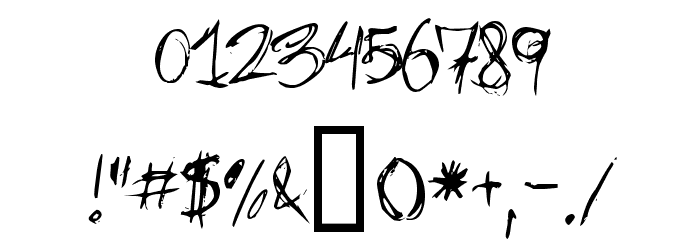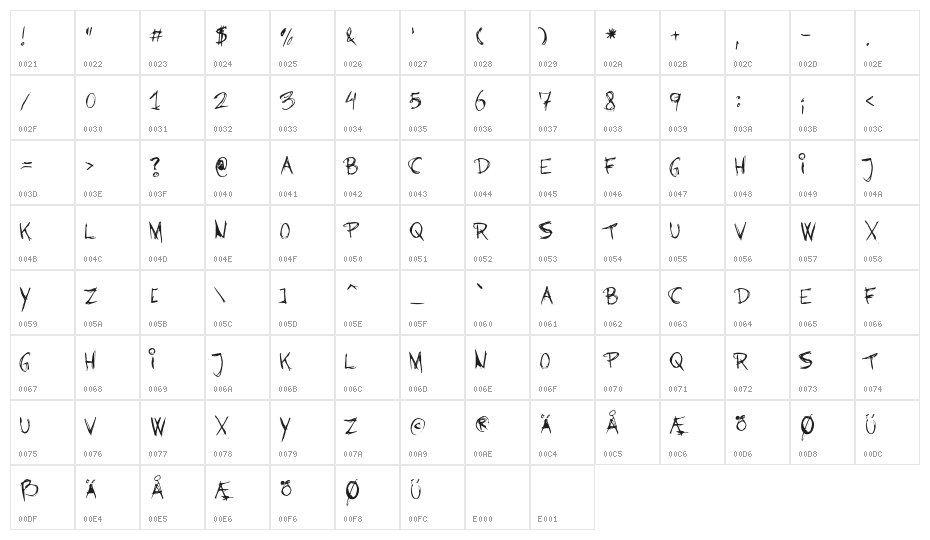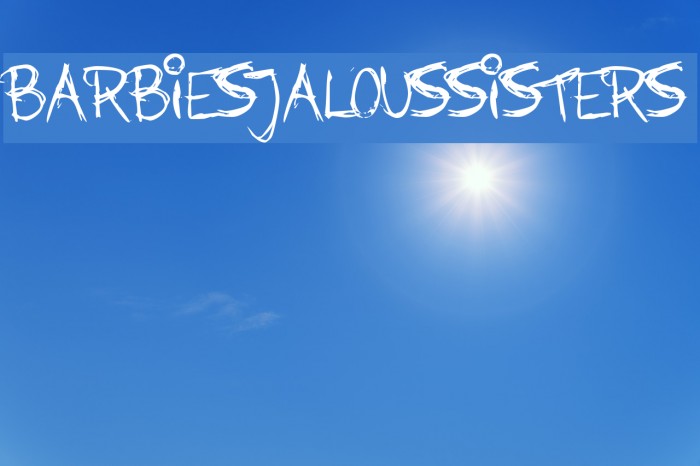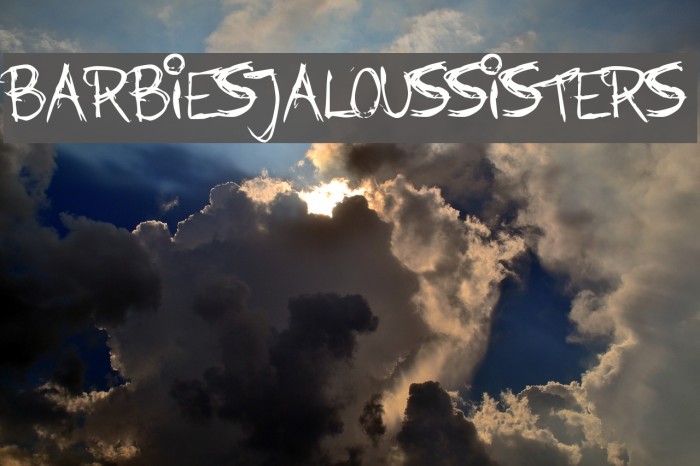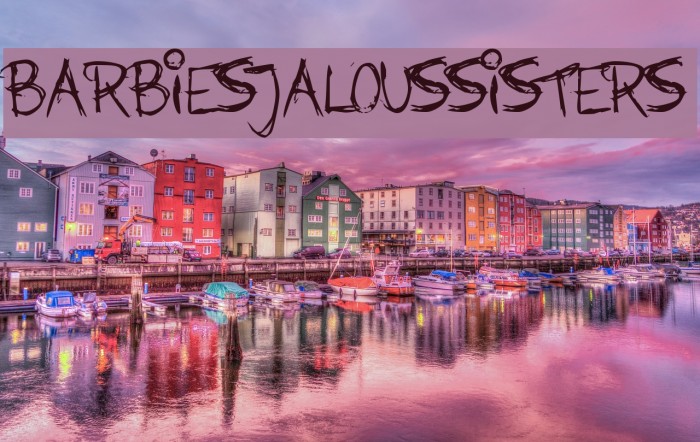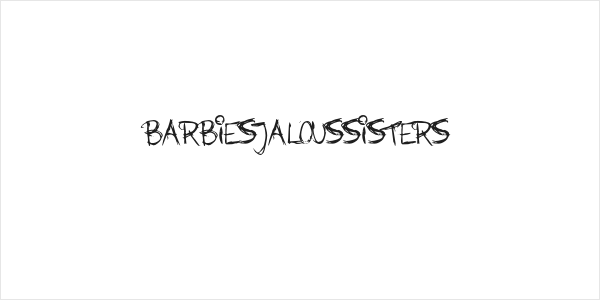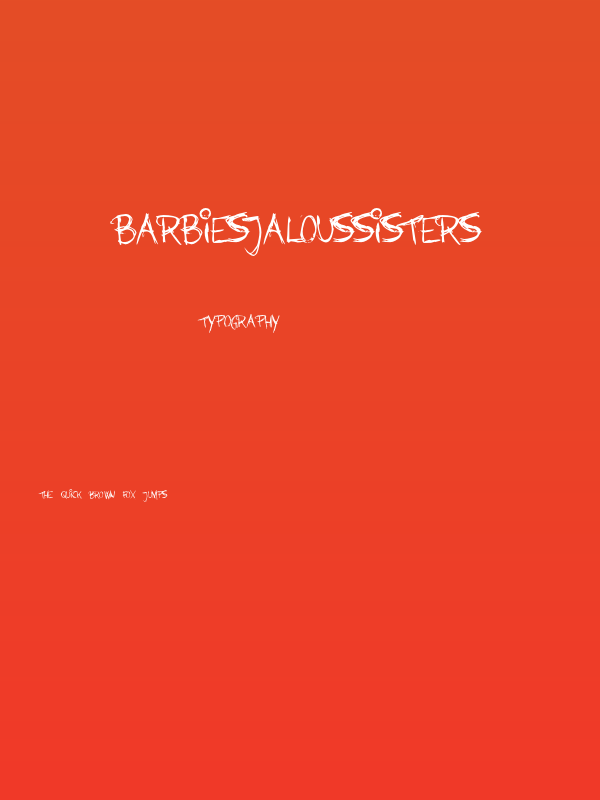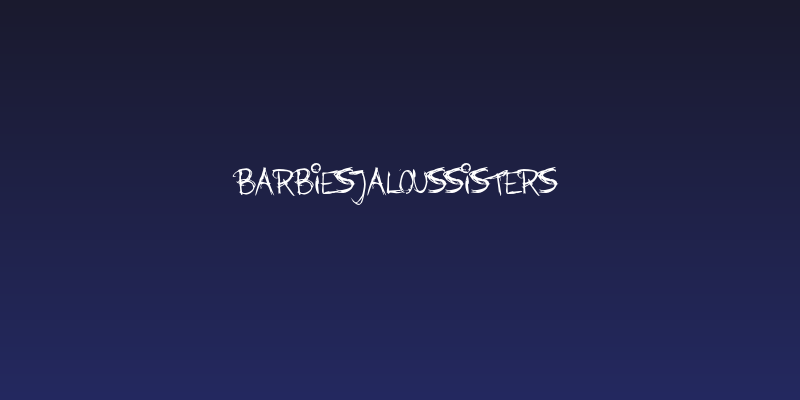
BarbiesJalousSisters Font
BarbiesJalousSisters Description
This font features a bold and edgy design with a distressed, grunge aesthetic. The characters are irregular and jagged, giving a sense of chaos and energy. The strokes are uneven, with splatters and rough edges that create a raw, hand-drawn appearance. This style is reminiscent of urban graffiti or punk rock album covers, making it ideal for projects that require a rebellious or unconventional look. The uppercase and lowercase letters maintain a consistent style, while the numbers and special characters complement the overall theme with their rugged design.
| Overall Style | Grunge, Urban, Edgy |
| Proposed Projects | Album covers, event posters, streetwear branding, or any project needing a rebellious, urban vibe. |